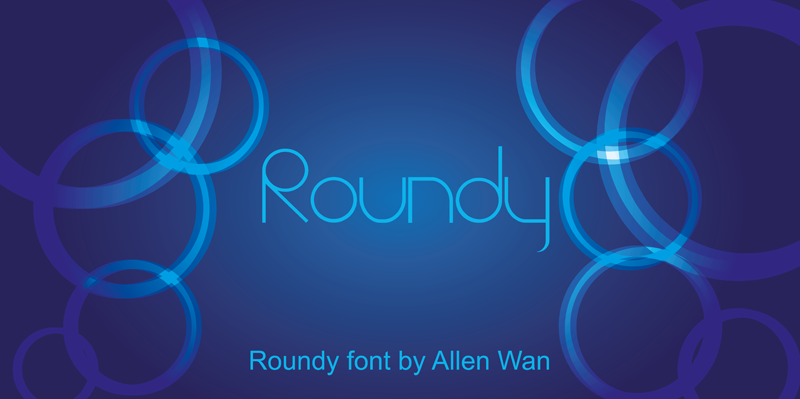
Font name: | Roundy |
Author: | Allen Wan |
Note by Allen Wan | |
Roundy is inspired by the name of the fruit "Orange", but also old/new typography that were combined with a modern and old school look to this unique typeface. The design is part of a TAFE Project. If you want further use to Roundy, please feel free to contact me. |